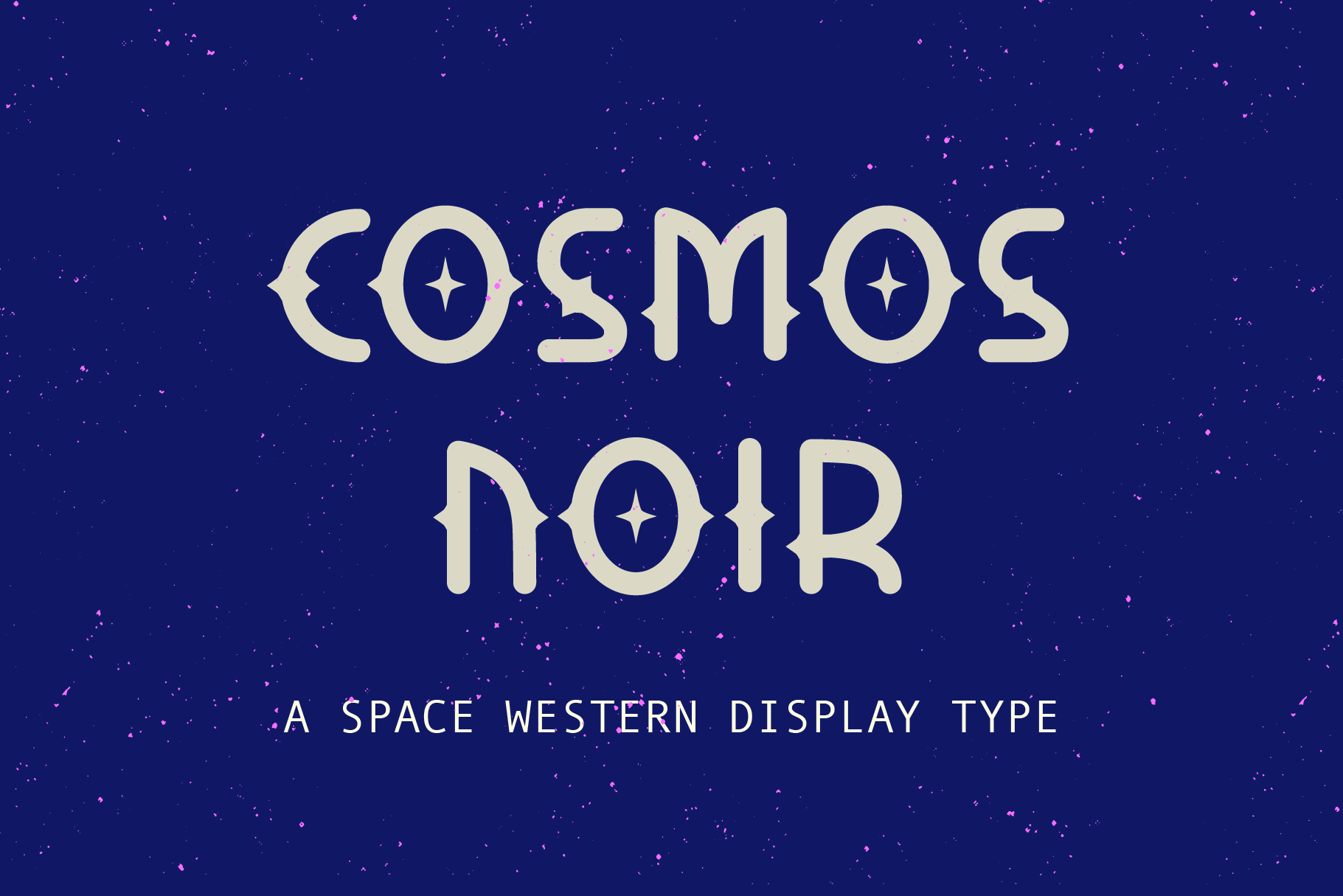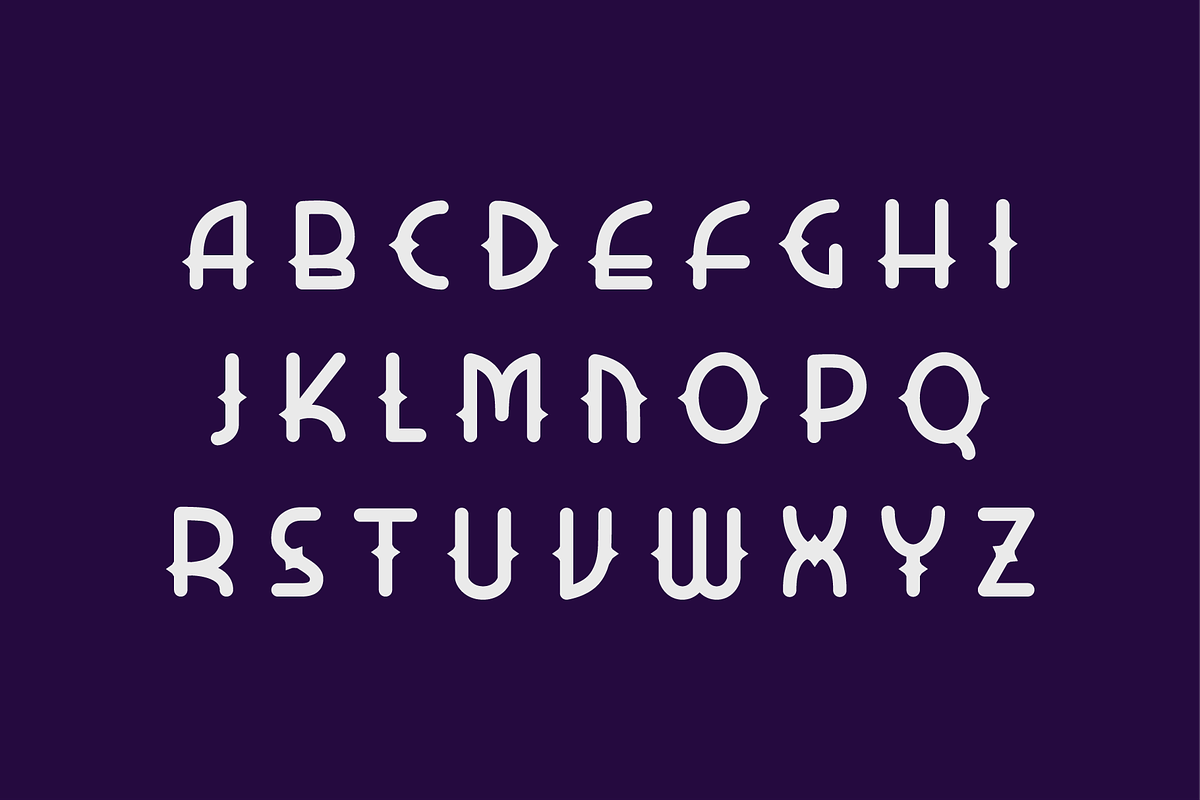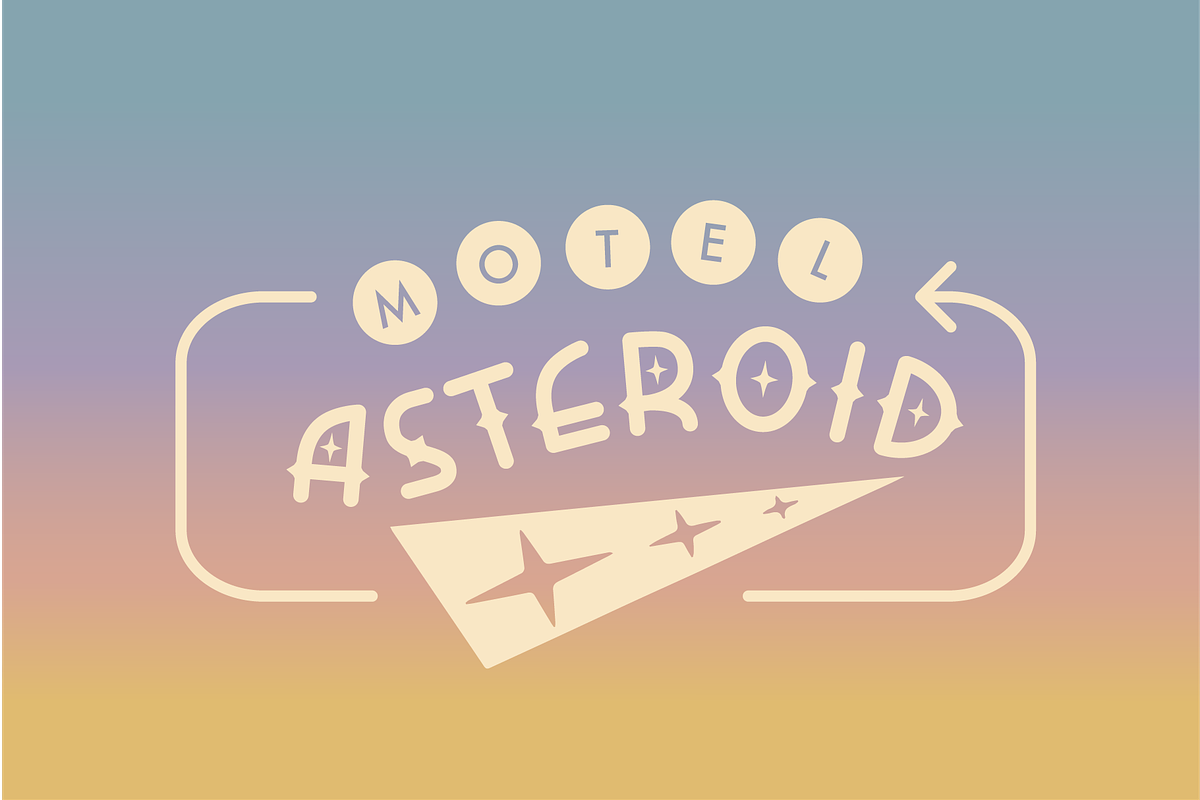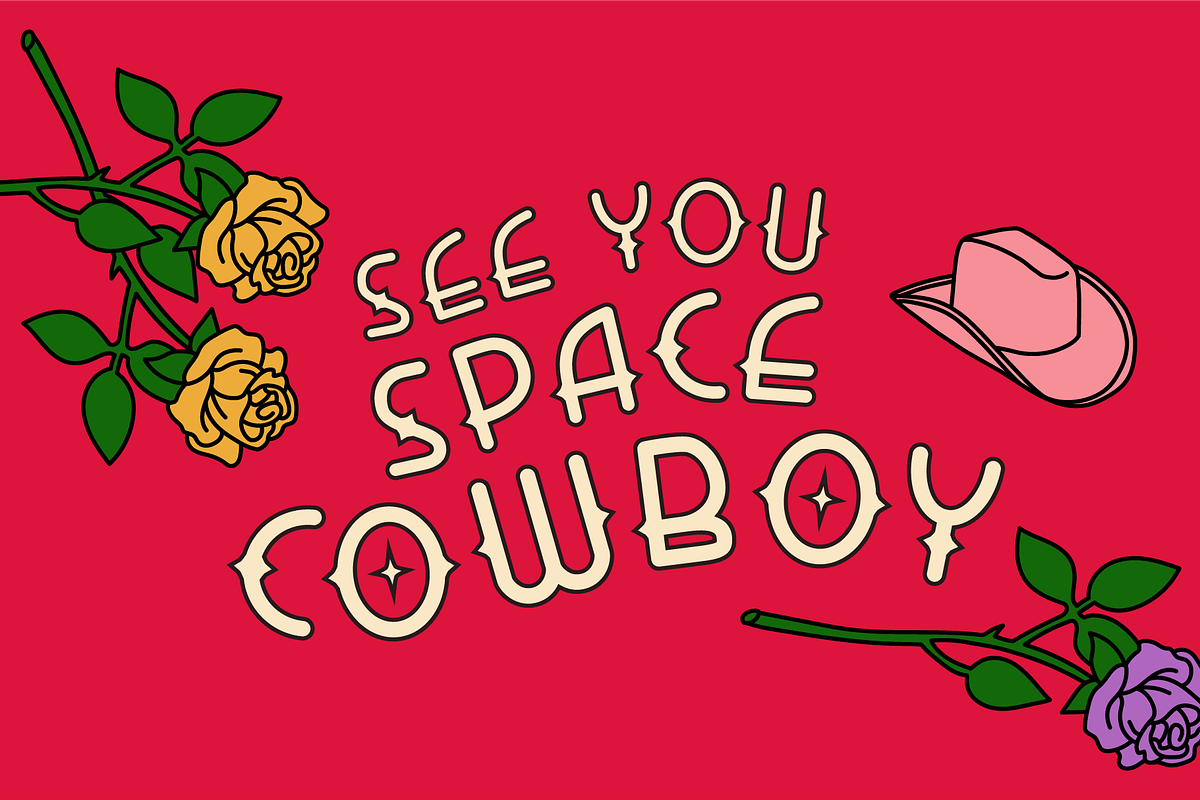
Cosmos Noir Display Typeface
Check out this display font inspired by retro-futurism and the Space Western genre, meshing together influences from old sci-fi film posters and traditional western embellishments.